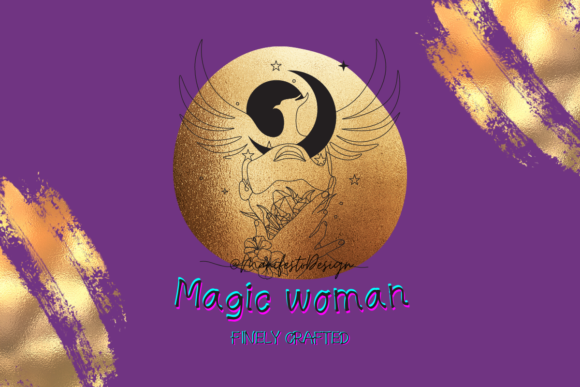
Magic Woman Font
Unleash the enchantment of your designs with Magic Woman Font, a captivating script font that transports you to a world of wonder. Its enchanting curves and whimsical characters bring a touch of magic to any creative endeavor, making it the ideal choice for crafting spellbinding children's books, enchanting product designs, captivating teaching materials, and heartfelt journal entries.
With Magic Woman Font, your words come alive, taking on a personality that resonates with readers and viewers alike. Its friendly and approachable nature makes it perfect for creating designs that connect with audiences on a deeper level. Whether you're designing products, promoting brands, or simply expressing your thoughts, Magic Woman Font adds a touch of magic that captivates and inspires.
Imagine the delight of a child as they embark on a literary adventure with a storybook adorned with Magic Woman Font. Its playful characters dance across the pages, inviting young readers to immerse themselves in a world of imagination and wonder.
For educators, Magic Woman Font becomes a powerful tool for creating teaching materials that capture students' attention. Its easy-to-read style ensures that lessons are easily understood, while its unique personality adds a touch of fun and excitement to the learning process.
Designers and artists will revel in the versatility of Magic Woman Font. Its natural script style lends itself to a wide range of projects, from product designs that exude elegance to promotional materials that demand attention. With Magic Woman Font, your designs will stand out from the crowd, leaving a lasting impression on your audience.
Don't miss the chance to weave your own enchanting tales and designs with Magic Woman Font. Its charm and allure will transform your creative projects into captivating masterpieces. Embrace the magic and let your imagination soar!